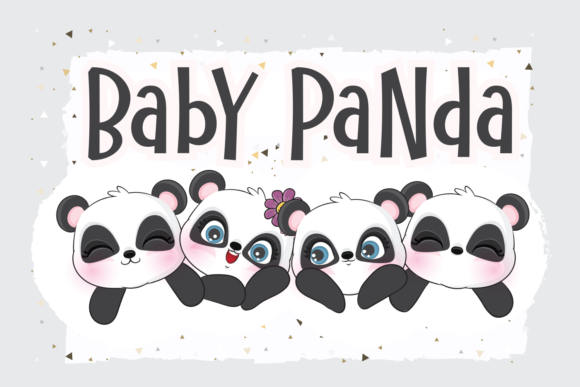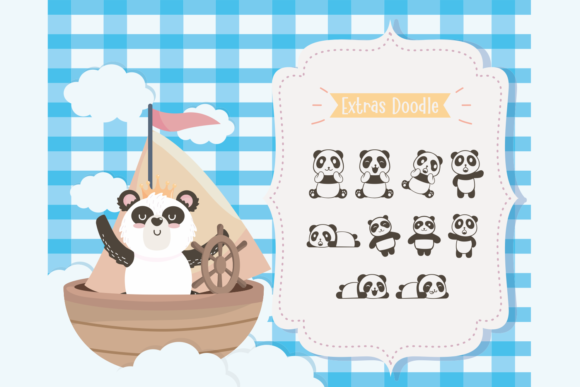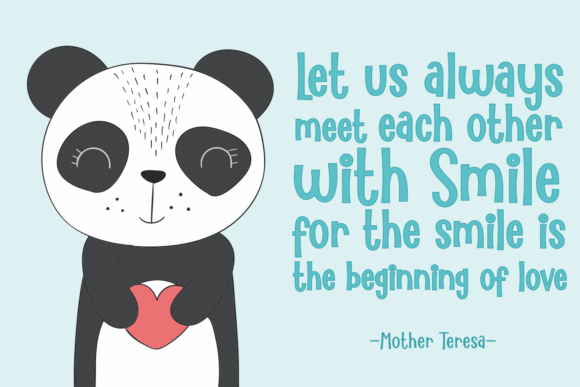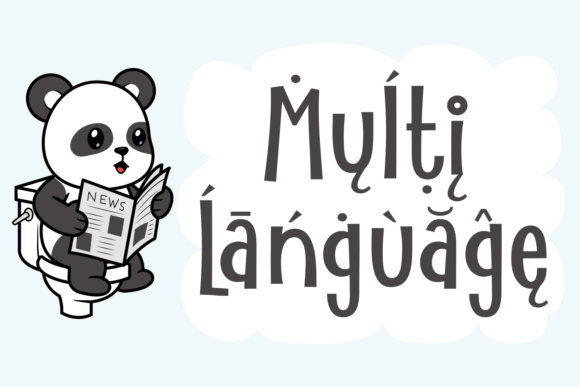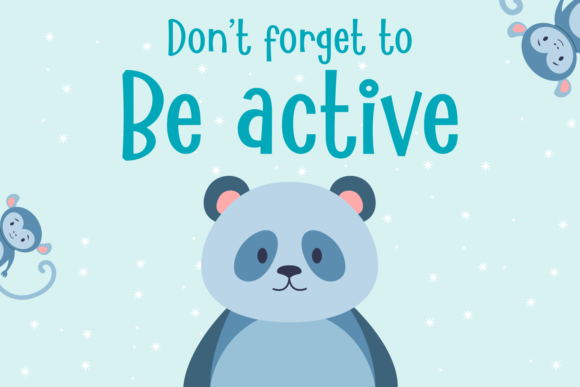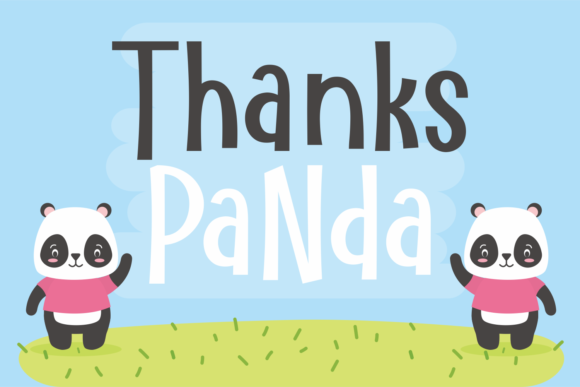
The Ultimate Guide to Hero Panda Font: A Chic and Quirky Display Font
I’ll never forget the time I was working on a branding project for a trendy new coffee shop. My client wanted a font that was fun, modern, and Instagram-worthy. I spent hours scouring the internet for the perfect font, but nothing seemed quite right. That was until I stumbled upon Hero Panda Font. ✨
Hero Panda is a chic, fun, and quirky display font that’s perfect for any branding project, from logos and t-shirt printing to creative products and more. In this article, I’ll share my honest review of Hero Panda, a step-by-step guide on how to use it, and some similar font alternatives.
- ✨ Unique and quirky design that’s sure to turn heads
- 🎉 Extensive character set, including glyphs and stylistic alternates
- 💻 Works beautifully on both digital and print platforms
While Hero Panda is an amazing font, there are a few things to keep in mind: 🤔
- ⚠️ Some characters may not work well in all contexts, such as in very small sizes or with certain color schemes
- ⚠️ Limited availability of certain language scripts
The Story Behind Hero Panda Font
Hero Panda was designed by a team of creatives who wanted to create a font that was both fun and functional. Inspired by the playful and adventurous spirit of pandas, they crafted a font that’s perfect for designers, crafters, and creative hobbyists alike.
| Font Name | Hero Panda Font |
| Author | Ari (7NTypes) |
Q: What is Hero Panda Font?
A: Hero Panda Font is a chic, fun, and quirky display font perfect for branding projects, logos, t-shirt printing, and more.